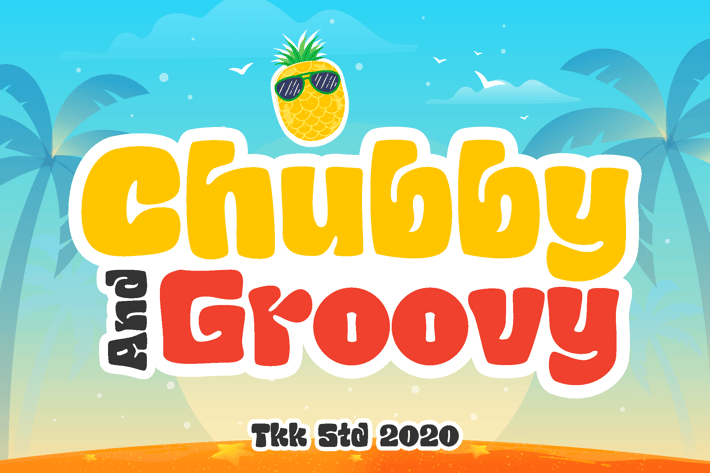
Chubby and Groovy - Kids retro font
Chubby and Groovy - children retro font
Chubby and Groovy is a retro cartoon typeface designed with thick curves, bubbly terminals, and a sun-soaked attitude. This font combines playful, chubby proportions with nostalgic 70s soul, creating a vibe that’s fun, relaxed, and full of personality. The smooth rounded edges, consistent weight, and bouncy baseline bring instant joy to any design, making it ideal for family-friendly campaigns, merchandise, and summer event visuals.
It delivers big visual impact with a carefree tone—perfect for social media headers, beach products, or even ice cream packaging. The retro aesthetic is easy to love and hard to miss.
Whether you're designing a surf party poster, retro tee, or sunny pop-up banner, Chubby and Groovy helps your message feel warm, nostalgic, and playful. Its bold presence and friendly vibe appeal to both kids and adults, making it a go-to for designers who need fonts that pop while staying emotionally inviting. From branding to editorial spreads to YouTube thumbnails, this font makes everything feel like summer.
Key Features :
Retro Meets Modern: Inspired by 70s design with a fresh cartoon twist
All Ages Appeal: Great for kids’ content, beachwear, and nostalgic branding
Eye-Catching Headlines: Chunky letterforms that command attention
Smooth & Rounded: Comfortable on the eyes, perfect for bold playful messaging